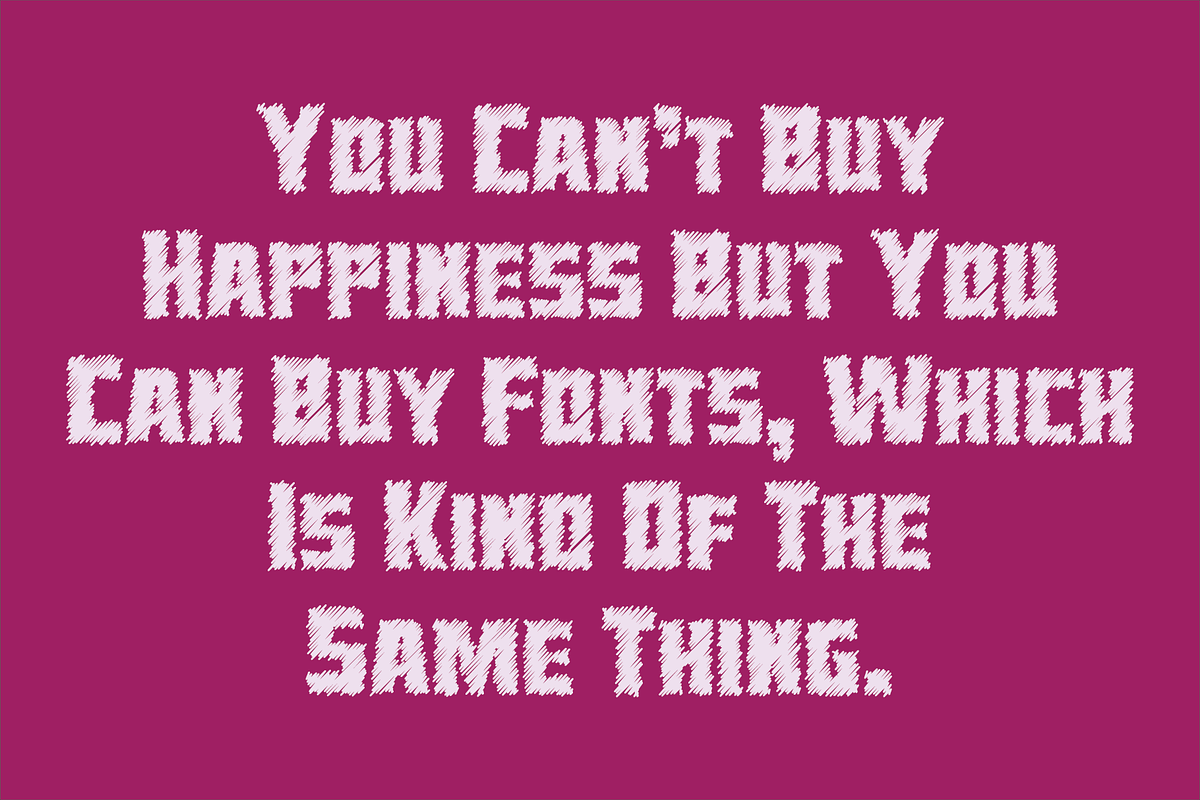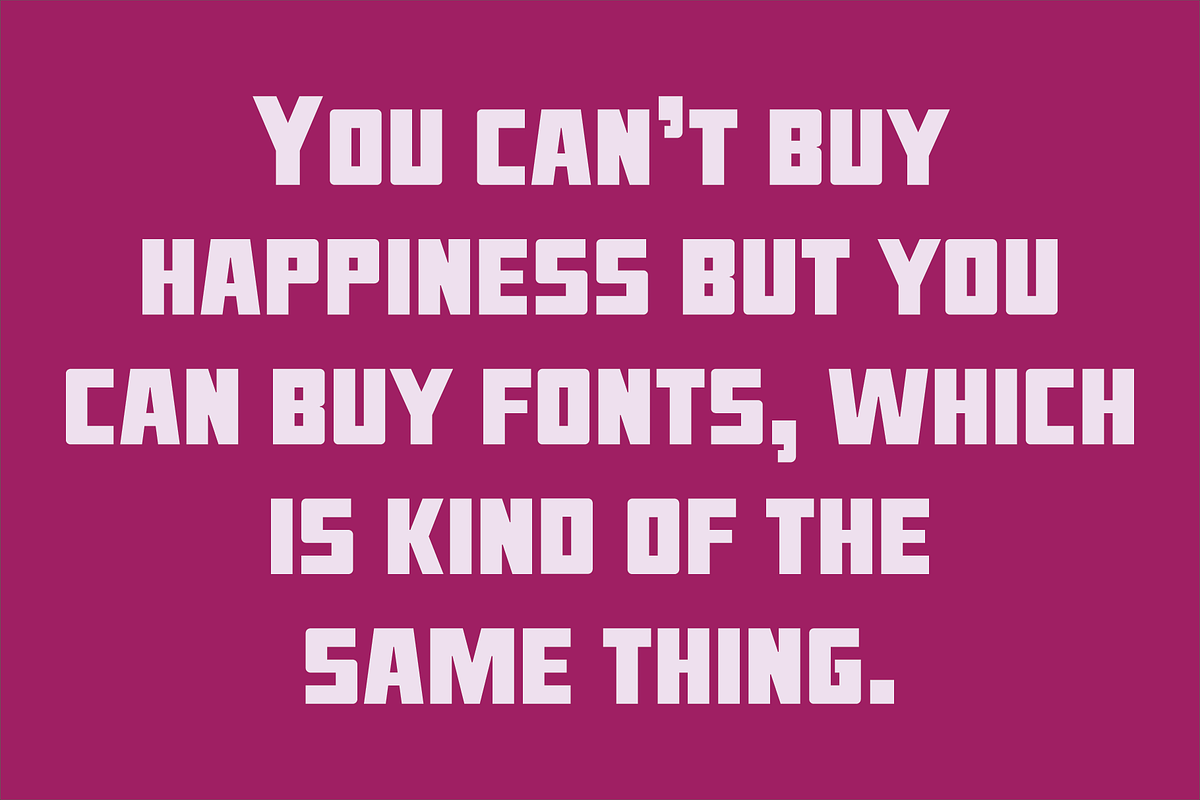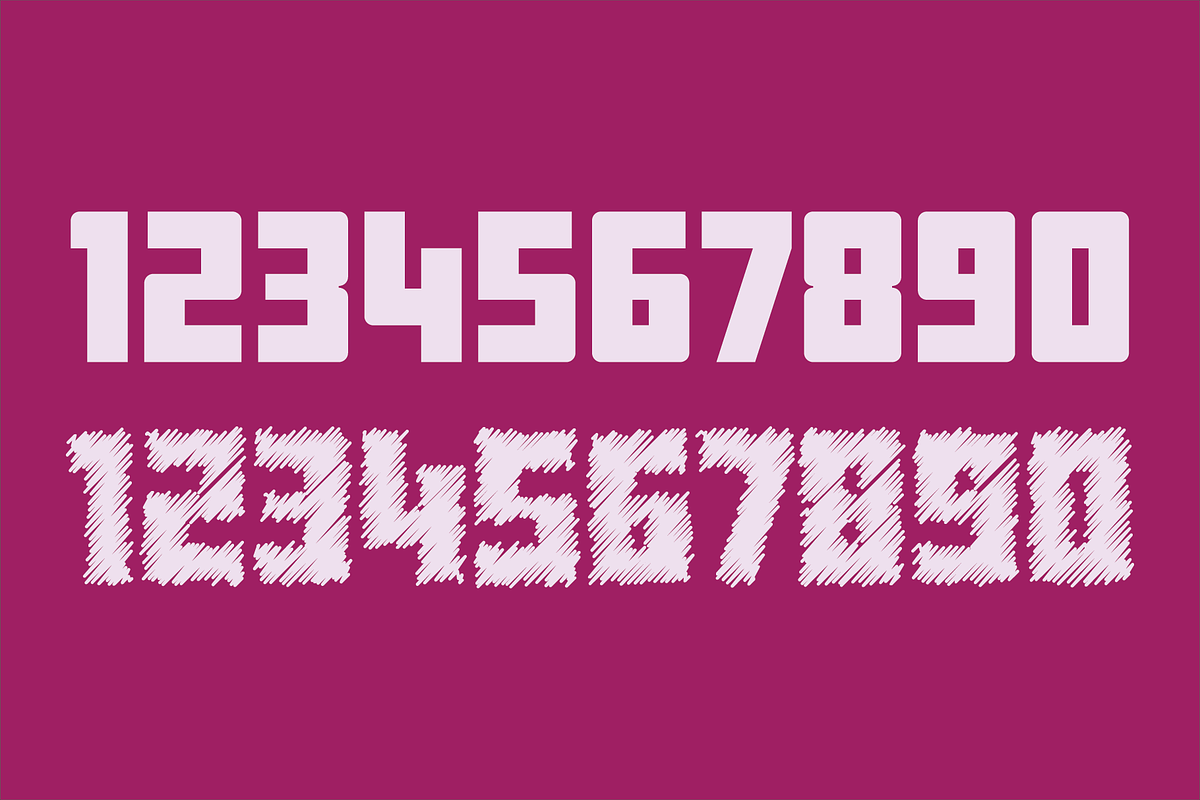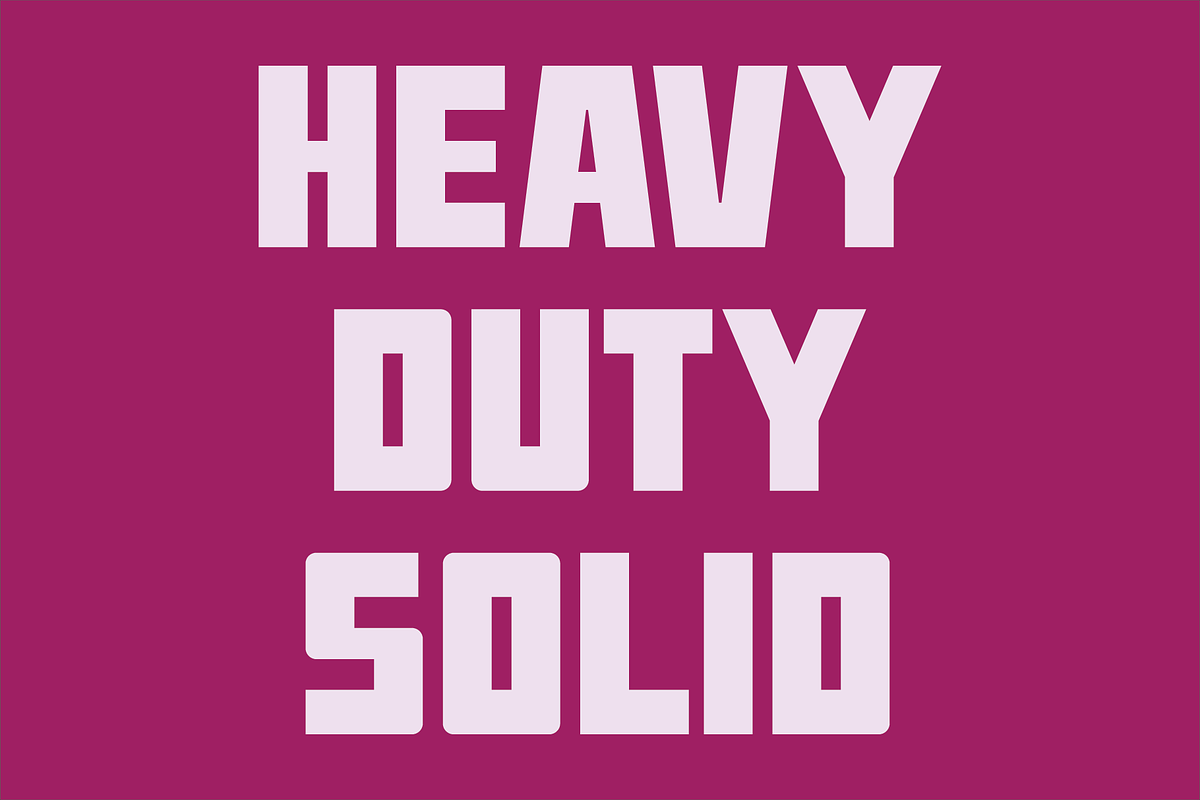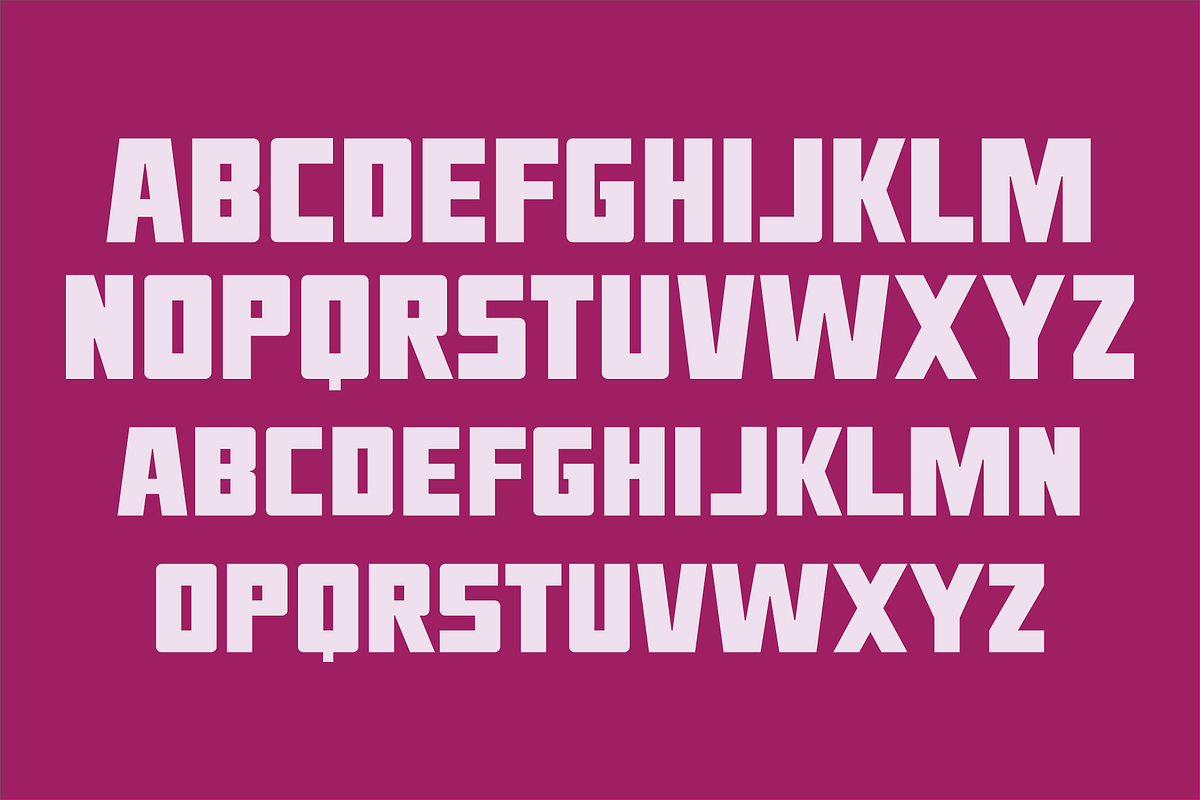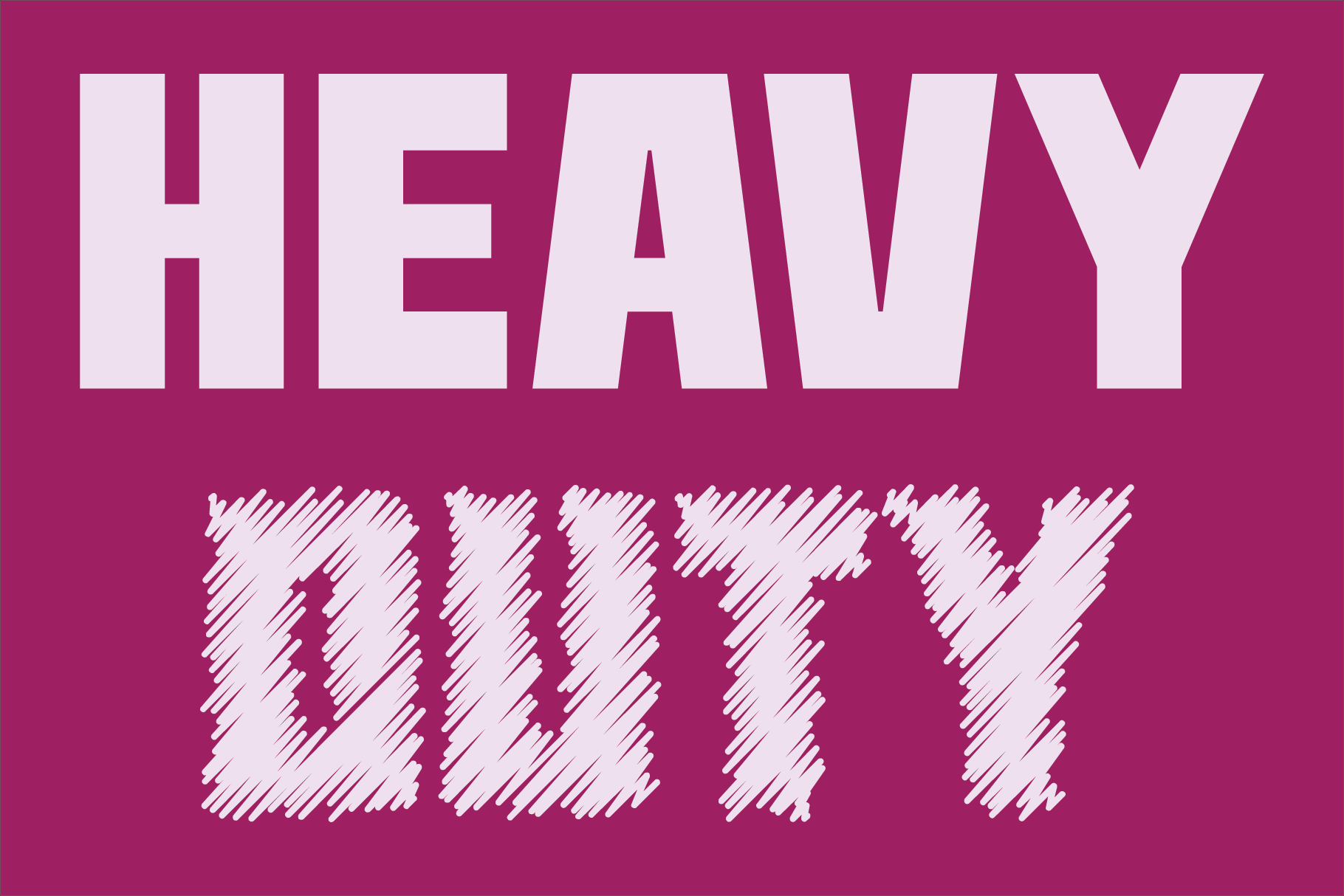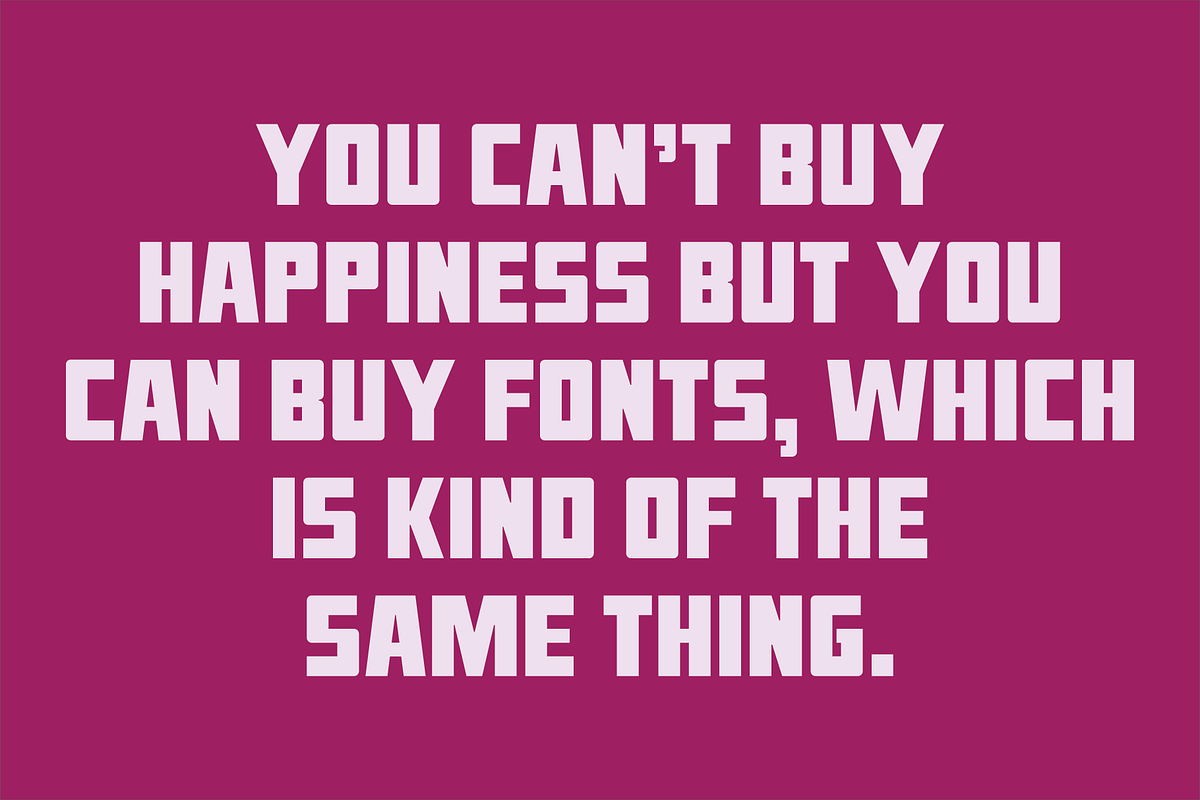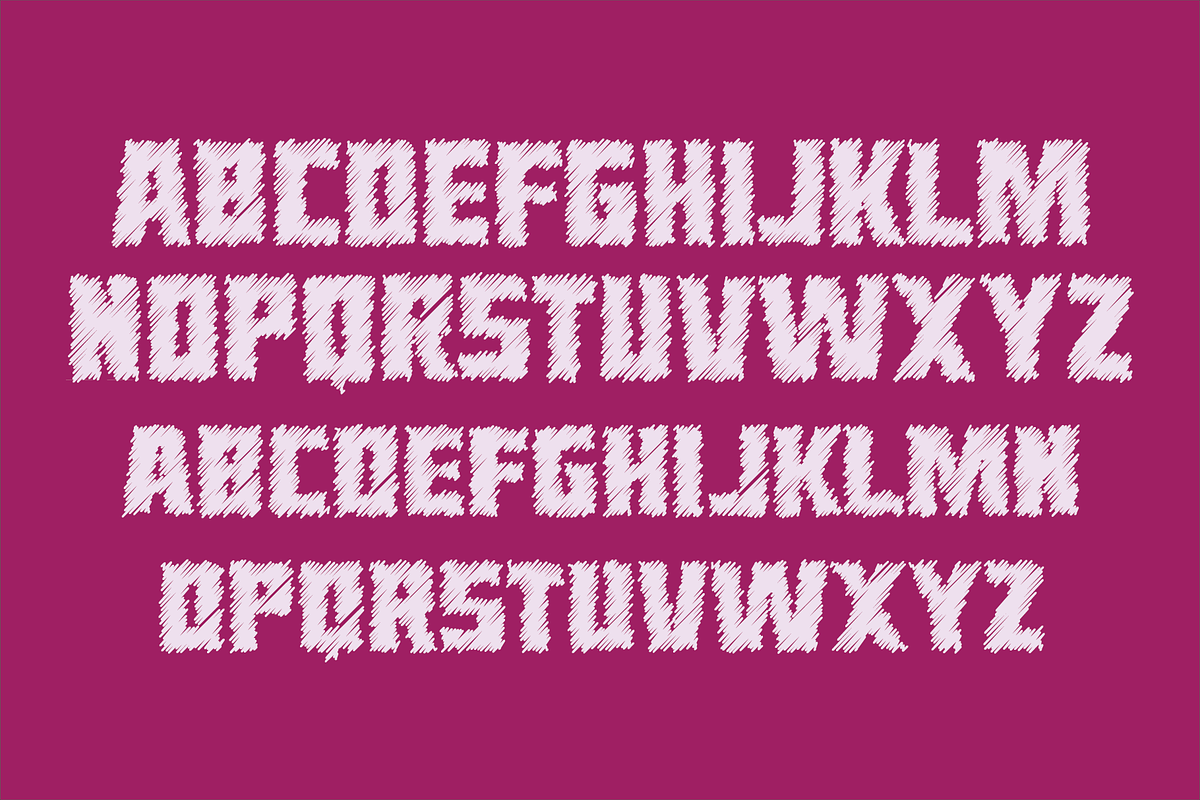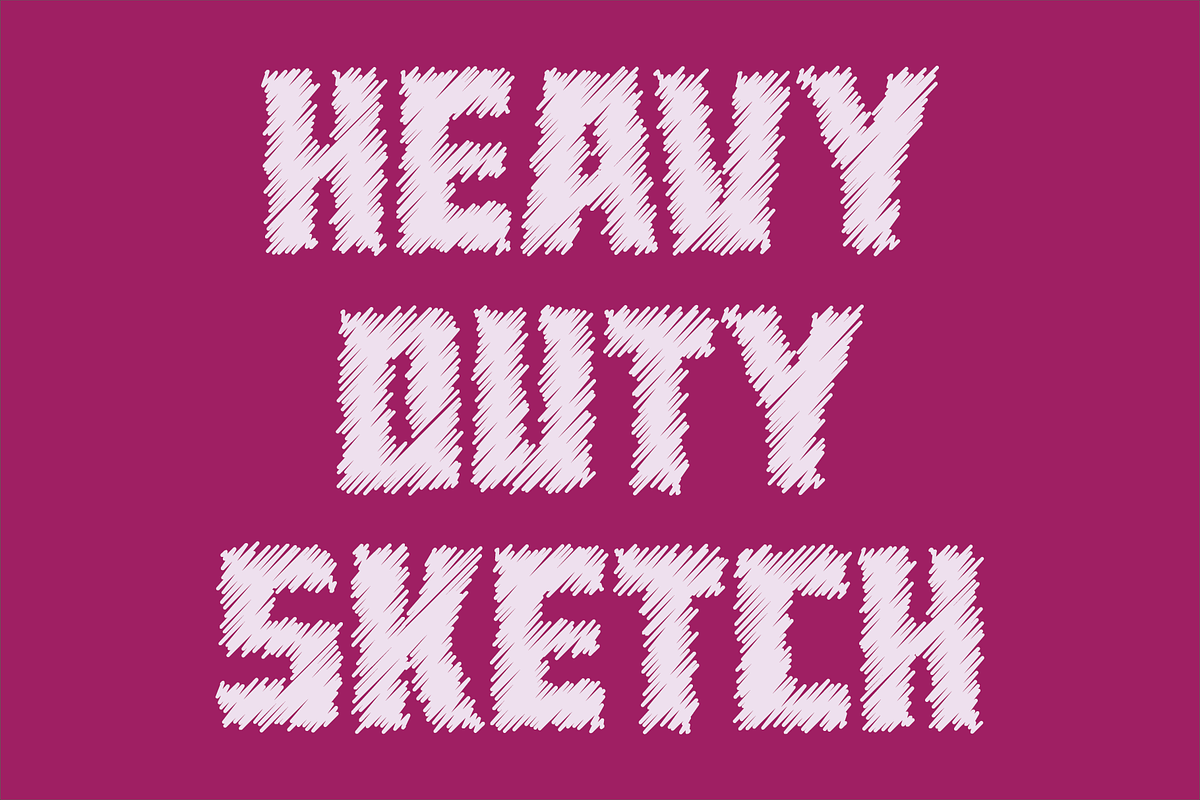
Heavy Duty Font Set
Heavy Duty is a bold condensed sans serif font set. Heavy Duty Solid is crisp and clean while Heavy Duty Sketch suggests characters that could have been sketched with a pen or pencil. Both fonts have the same uppercase and small caps lowercase alphabet, numbers, punctuation, symbols, and miscellaneous characters. The Heavy Duty fonts are ideal for making a bold statement in headlines, titles, or text.